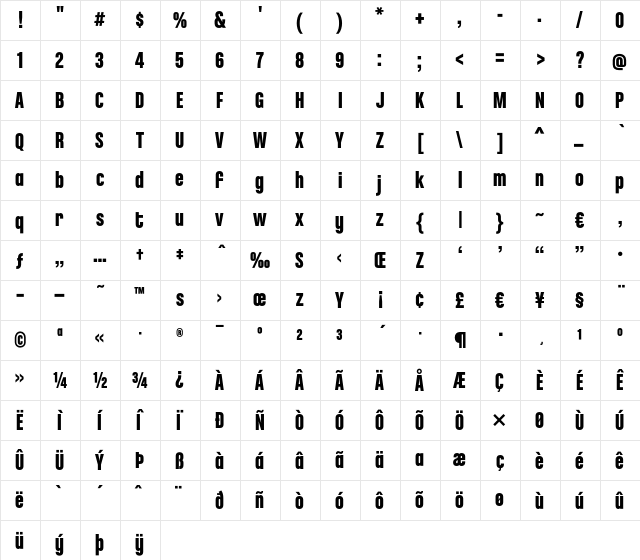
ChaletComprime-HongKongEighty Regular
Design Context for ChaletComprime-HongKongEighty Typeface
ChaletComprime-HongKongEighty takes a measured approach to typography — its balanced proportions and neutral character make it a reliable workhorse for both digital and print work.